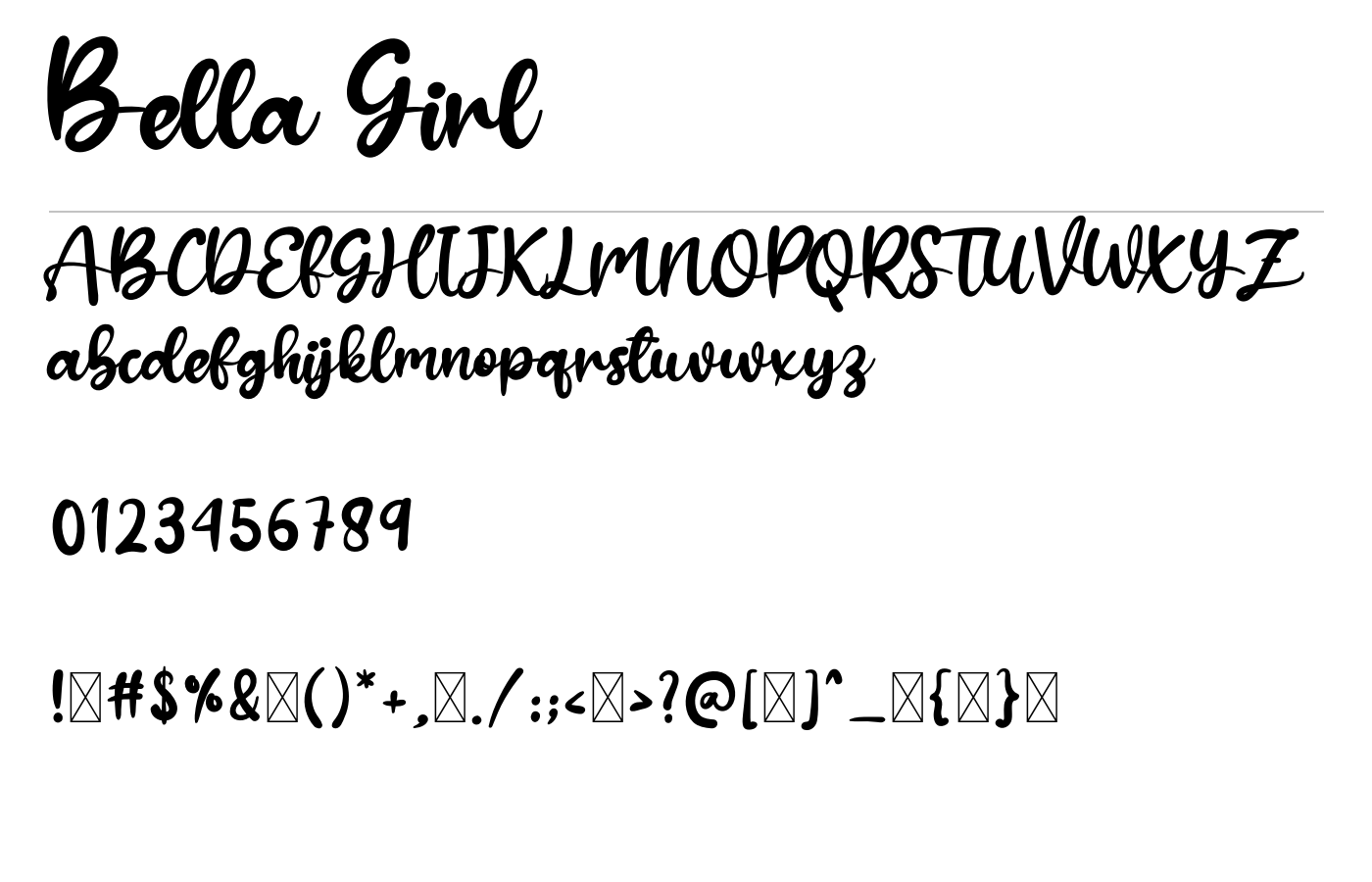
Bella Girl is a playful and charming script font with smooth, rounded strokes and a friendly, casual feel. Its bold, hand-drawn style makes it ideal for creative projects, branding, and invitations where a personal, approachable vibe is desired. This font works wonderfully in headlines and logos, bringing warmth and a youthful energy to any design.
Bella Girl Font
About Bella Girl Font